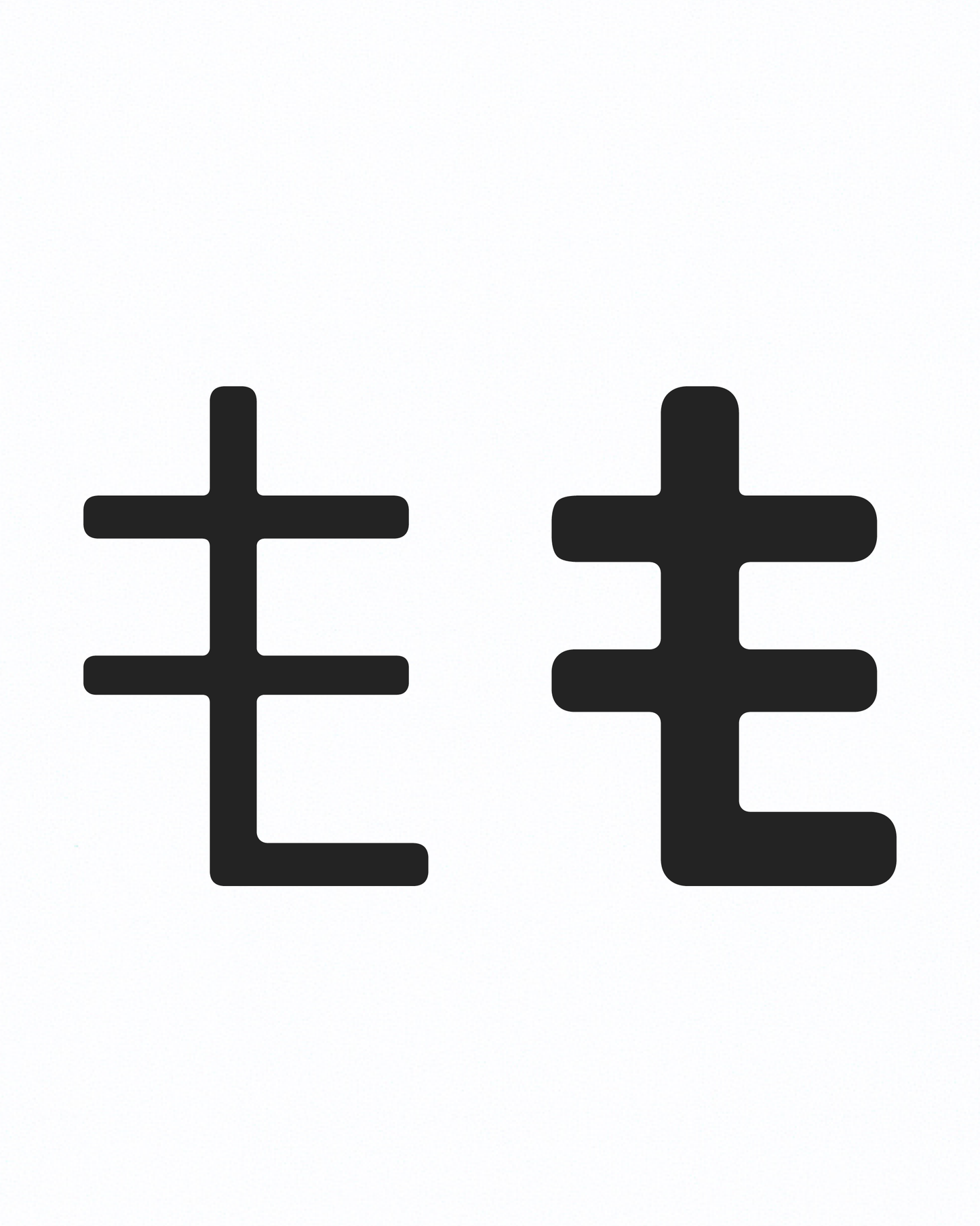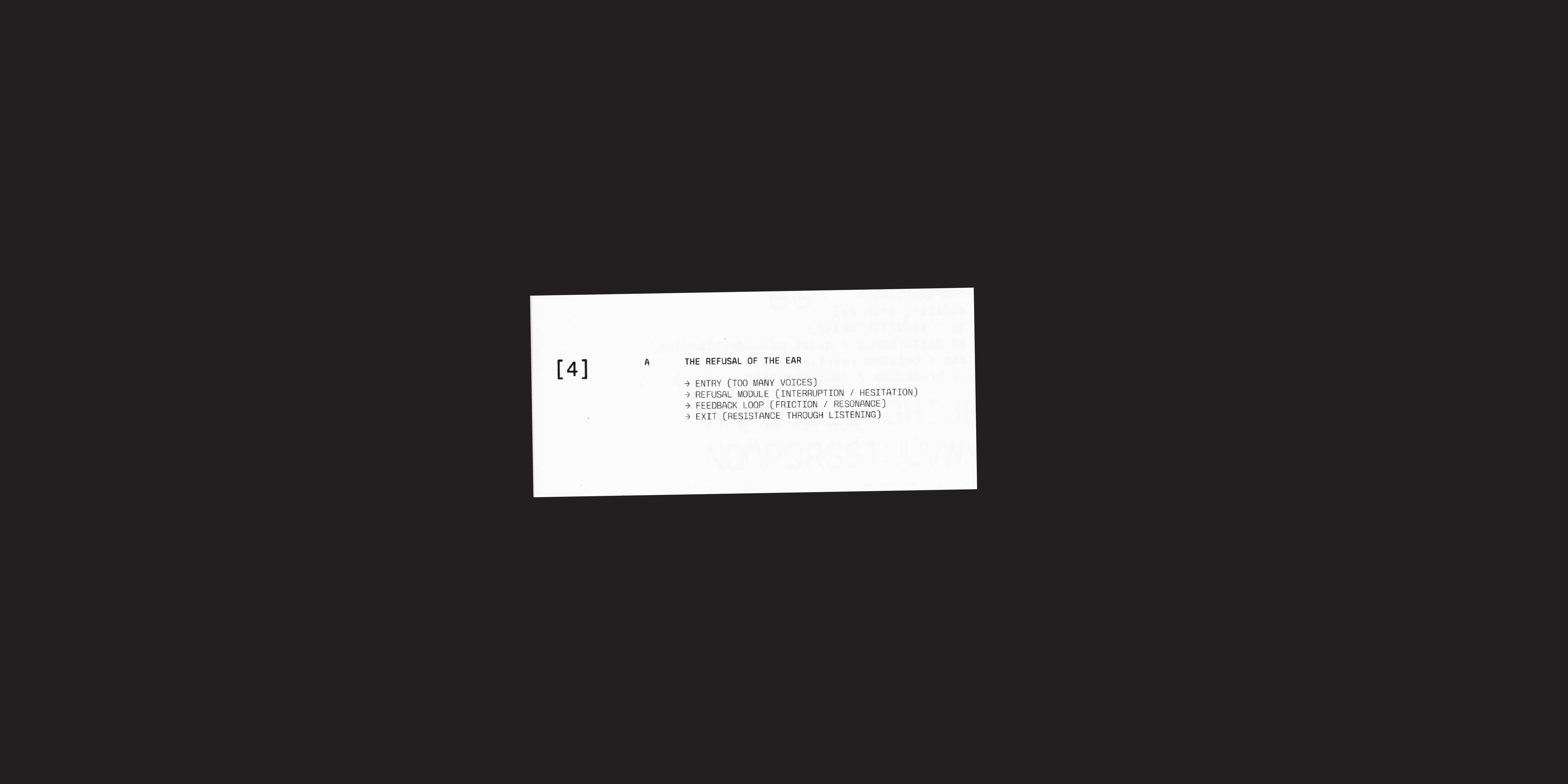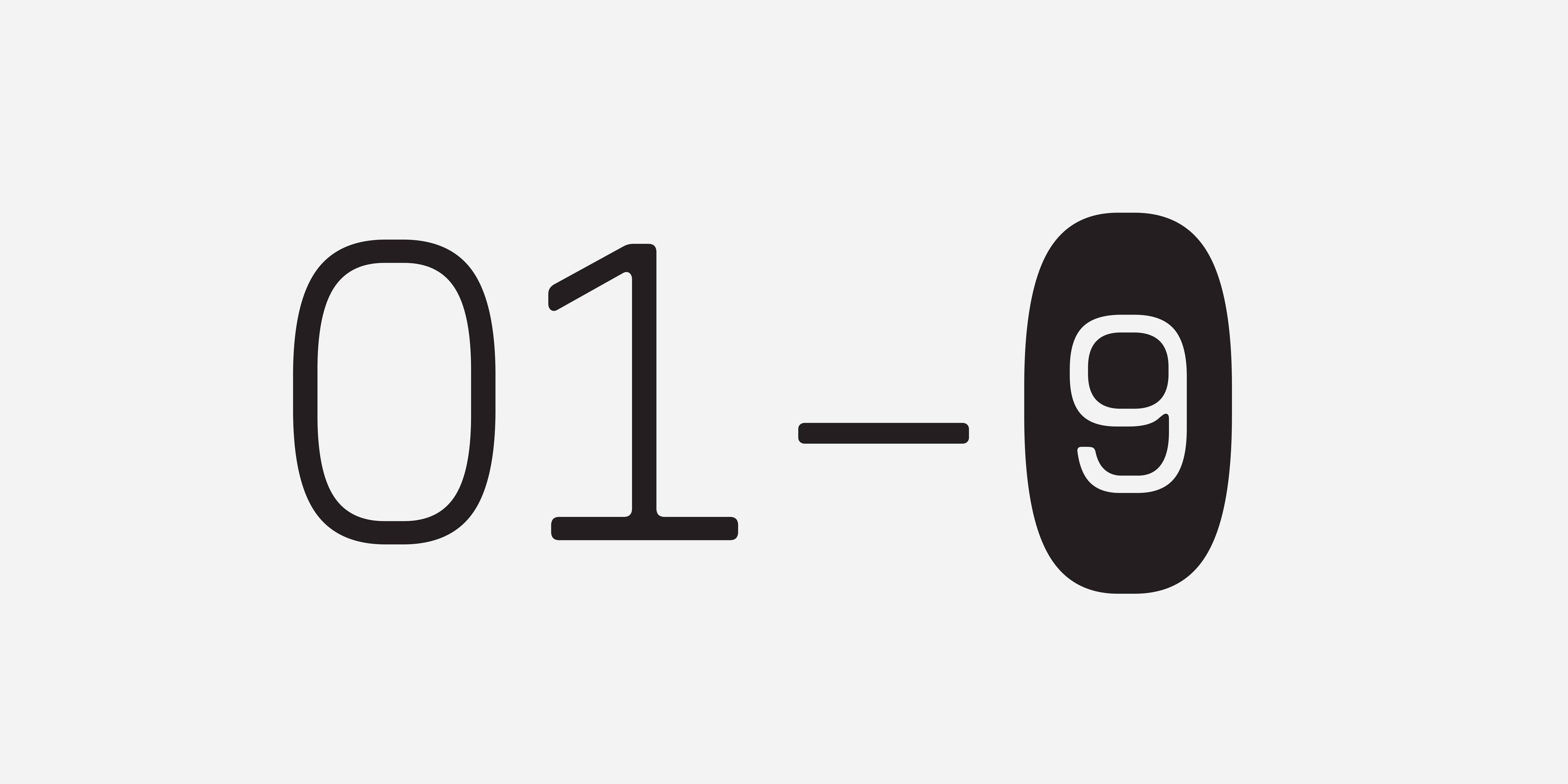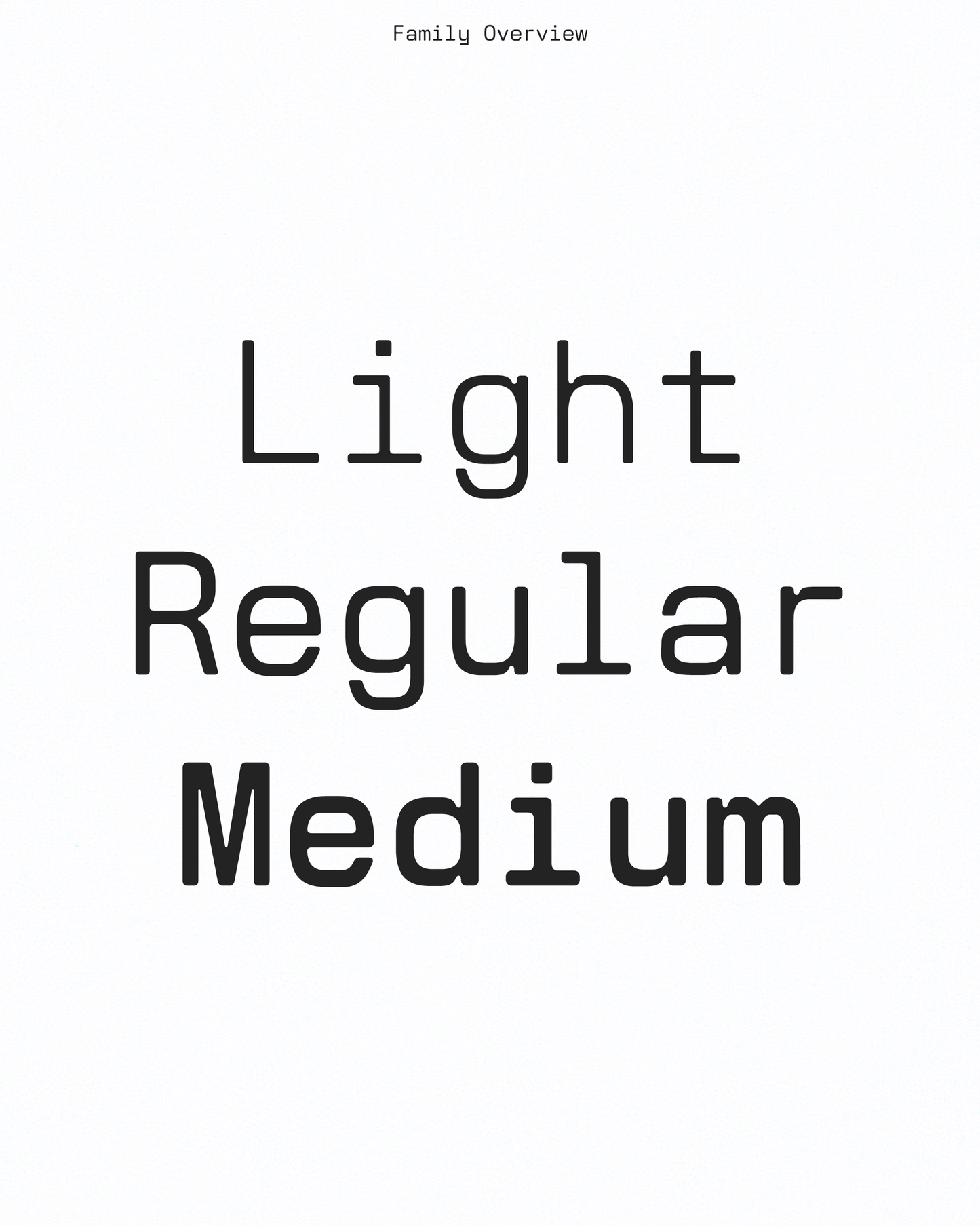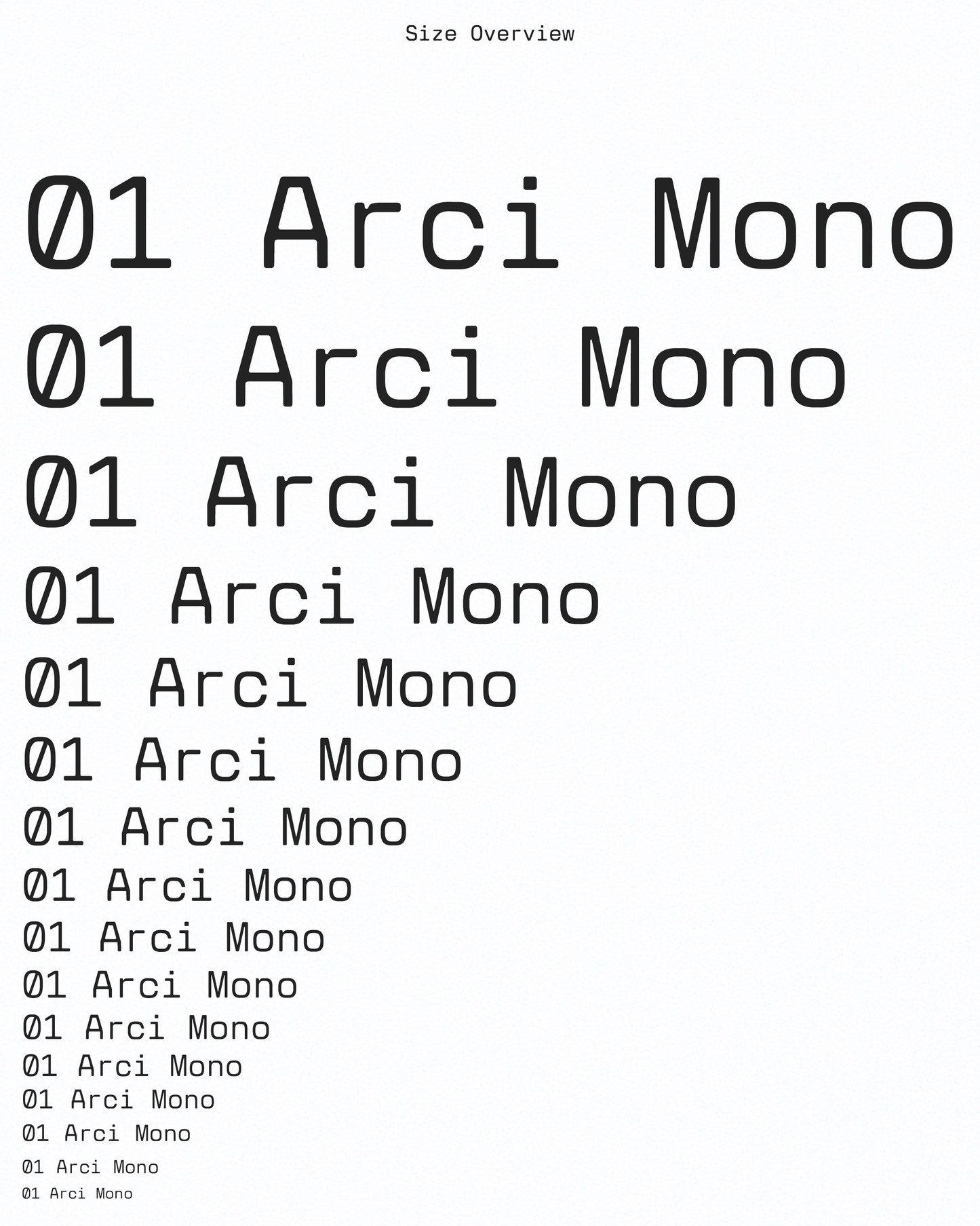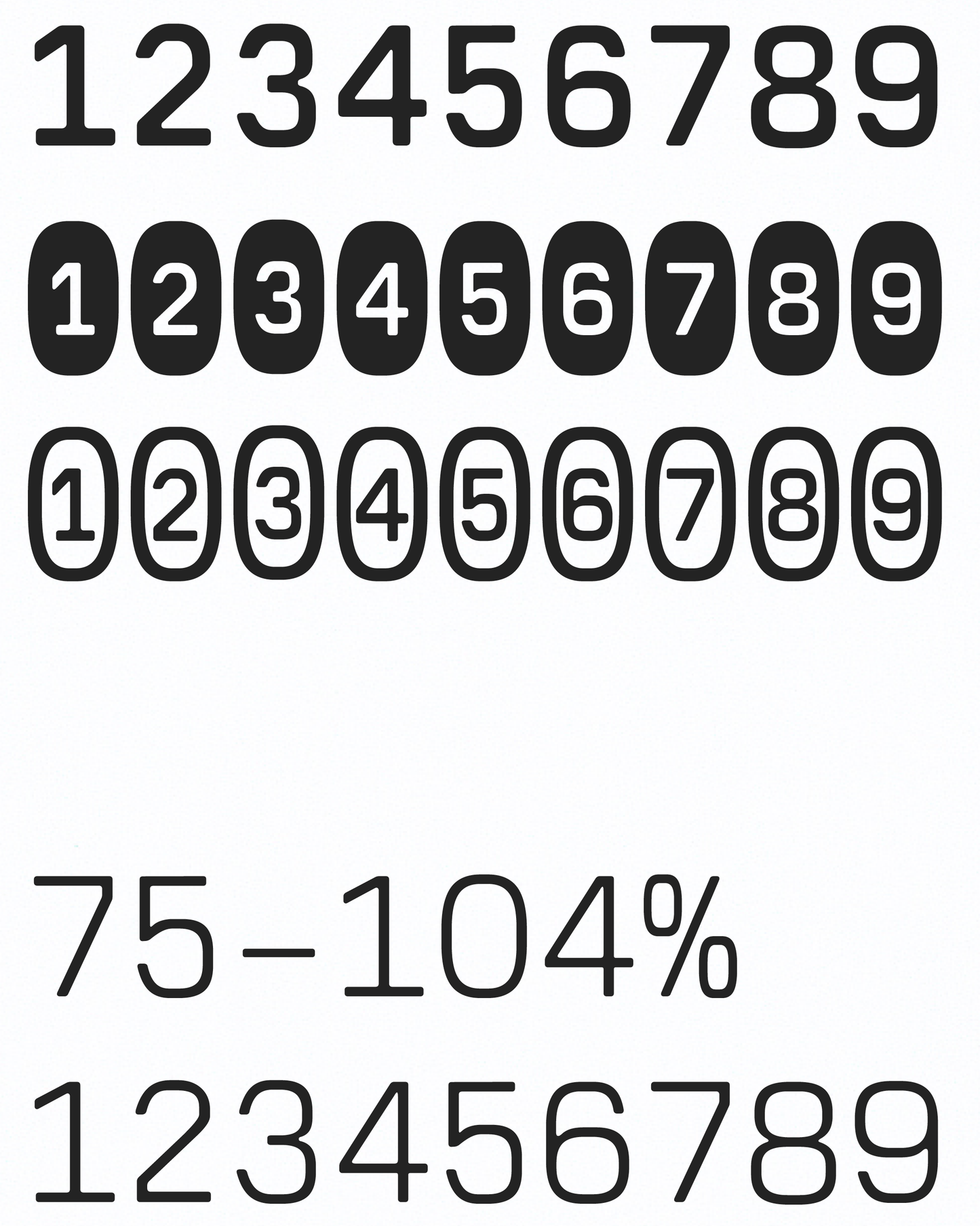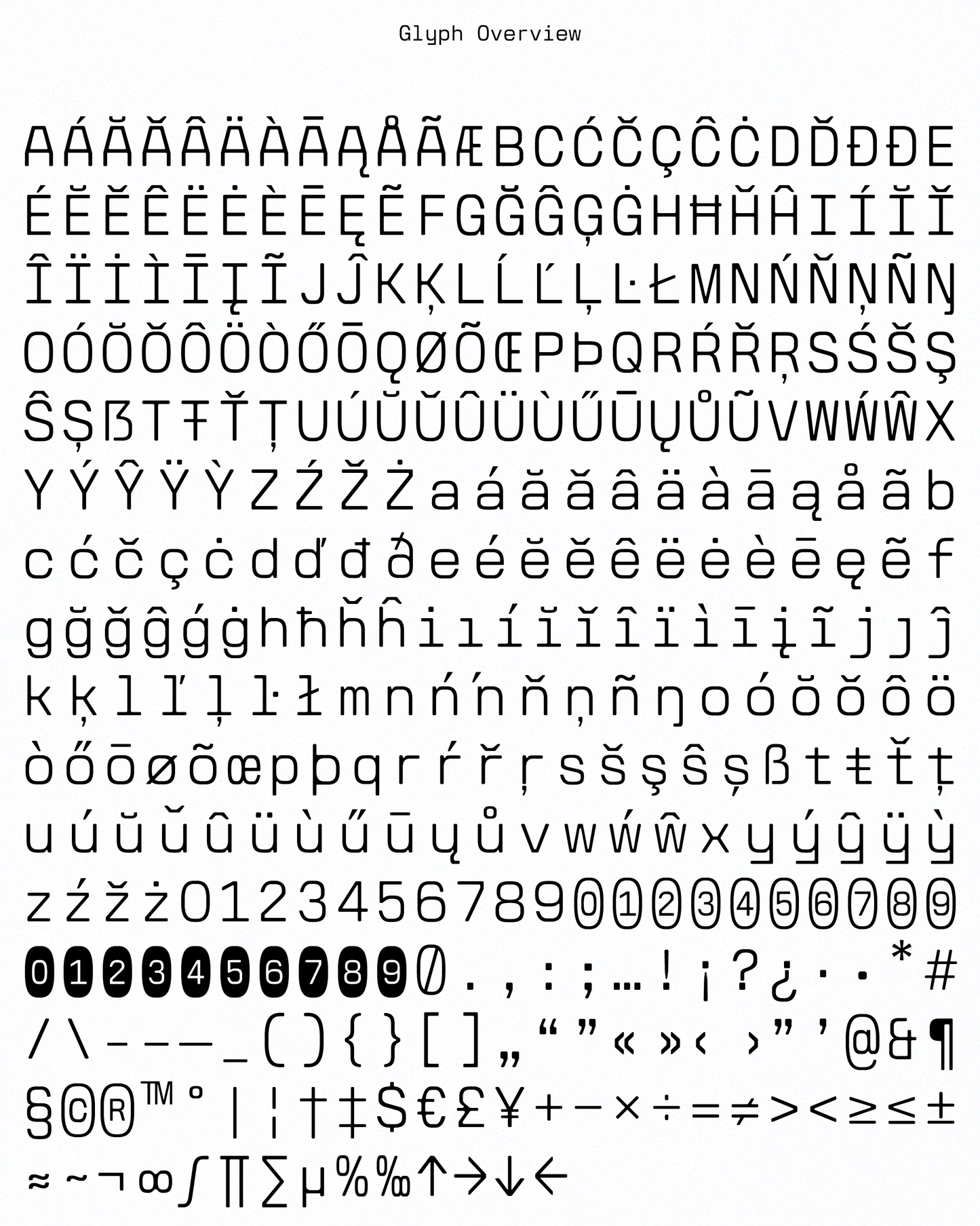
Arci Mono
Arci Mono is a monospaced variable typeface that borrows its logic from modular synthesisers and technical interfaces. The strict repetition of the monospace grid mirrors the fixed steps of a sequencer, while the letterforms themselves retain a softness that resists mechanical hard-ness.
— BASIC LATIN
— 100% LATIN EXTENDED-A
— DIACRITICS
— PUNCTUATION & SYMBOLS
— LIGATURES
— STYLISTIC ALTERNATES
— CIRCLED FIGURES 0–9
— OPENTYPE FEATURES